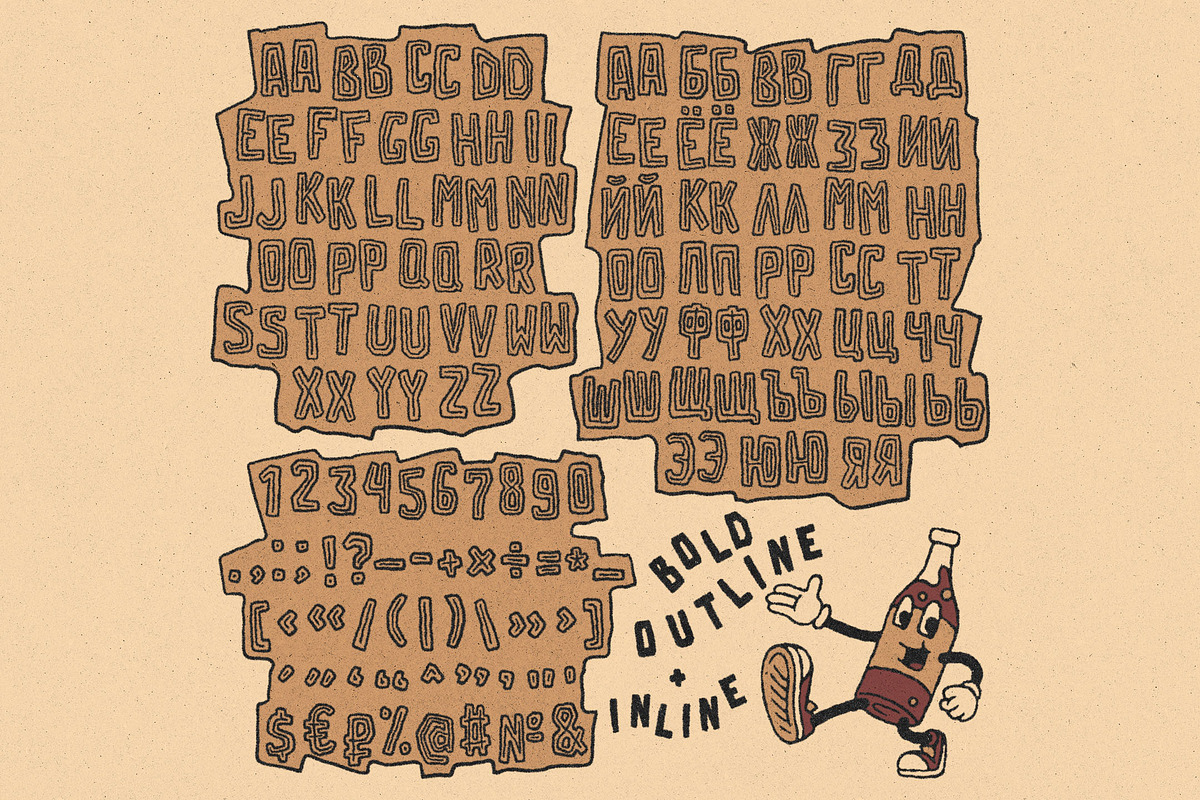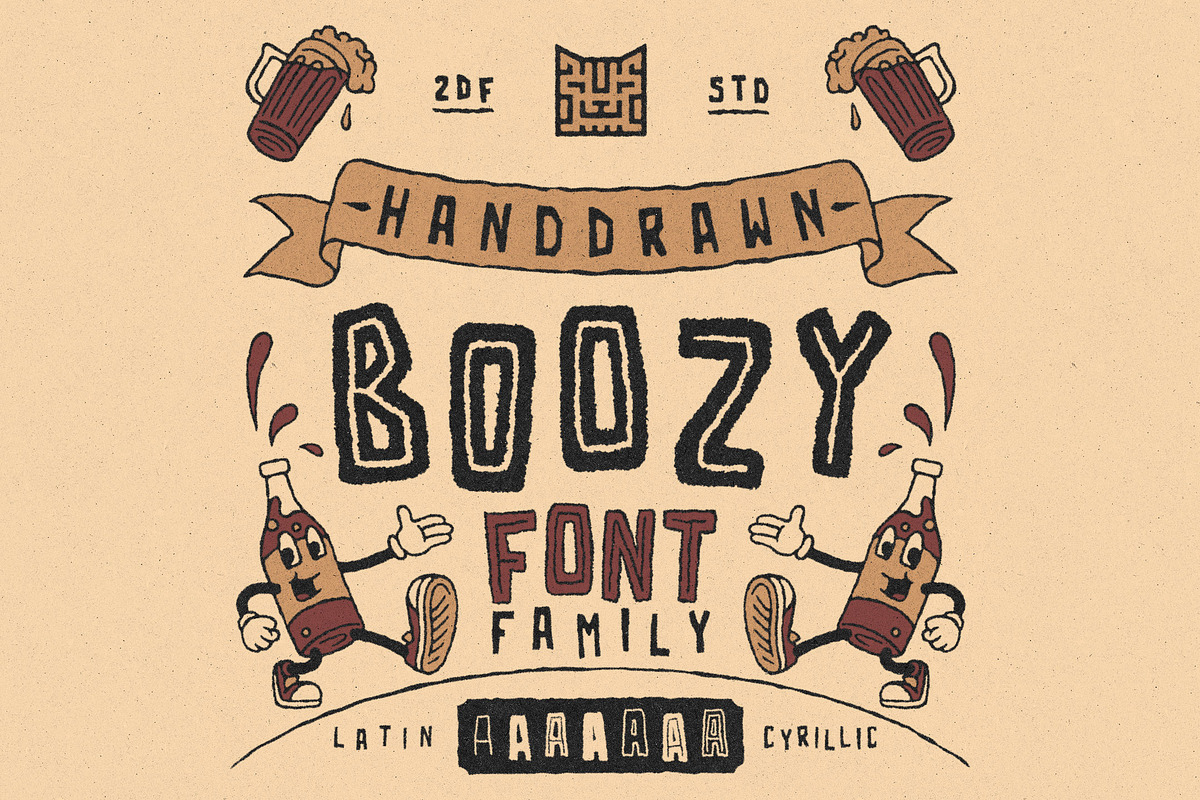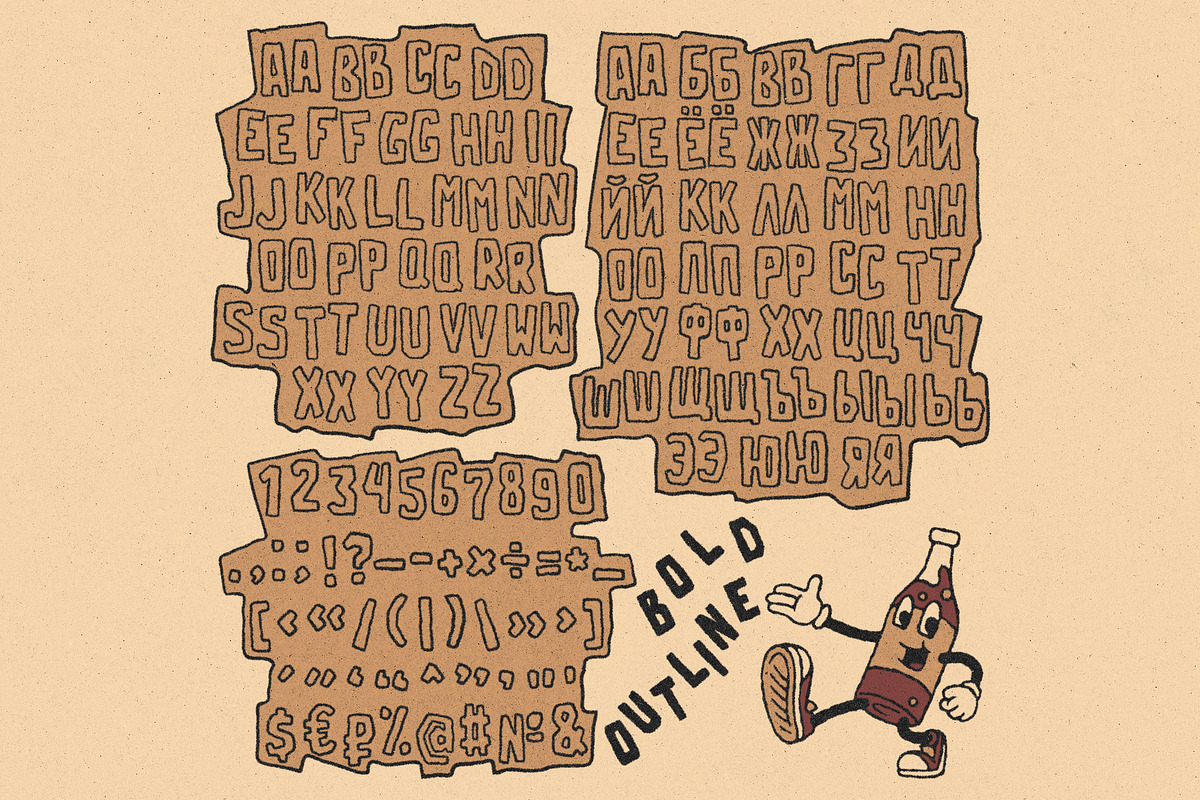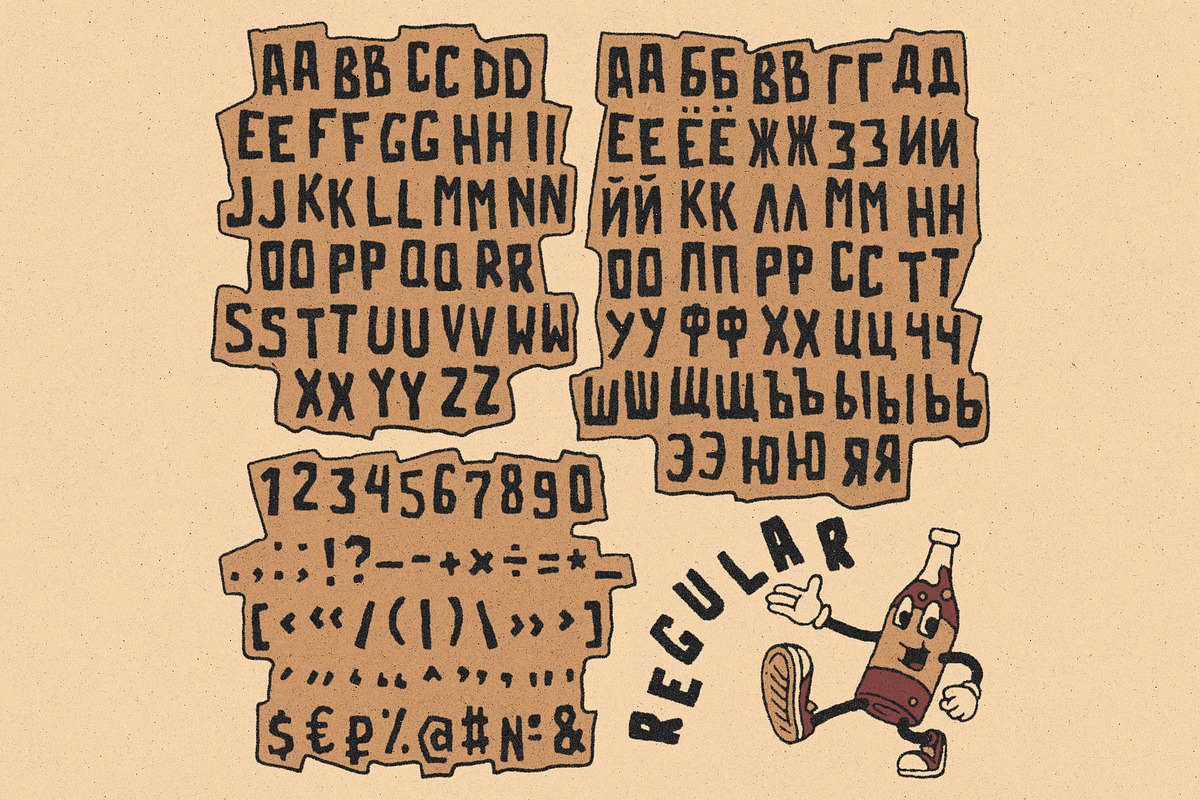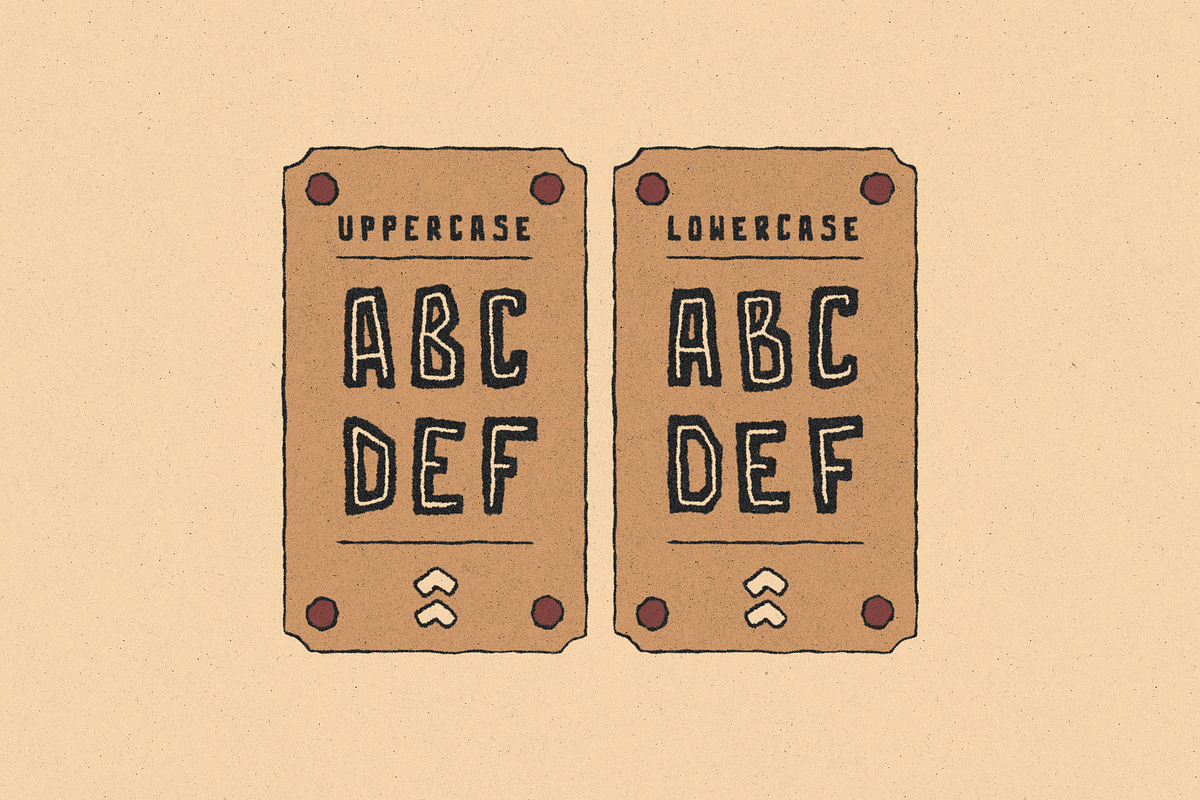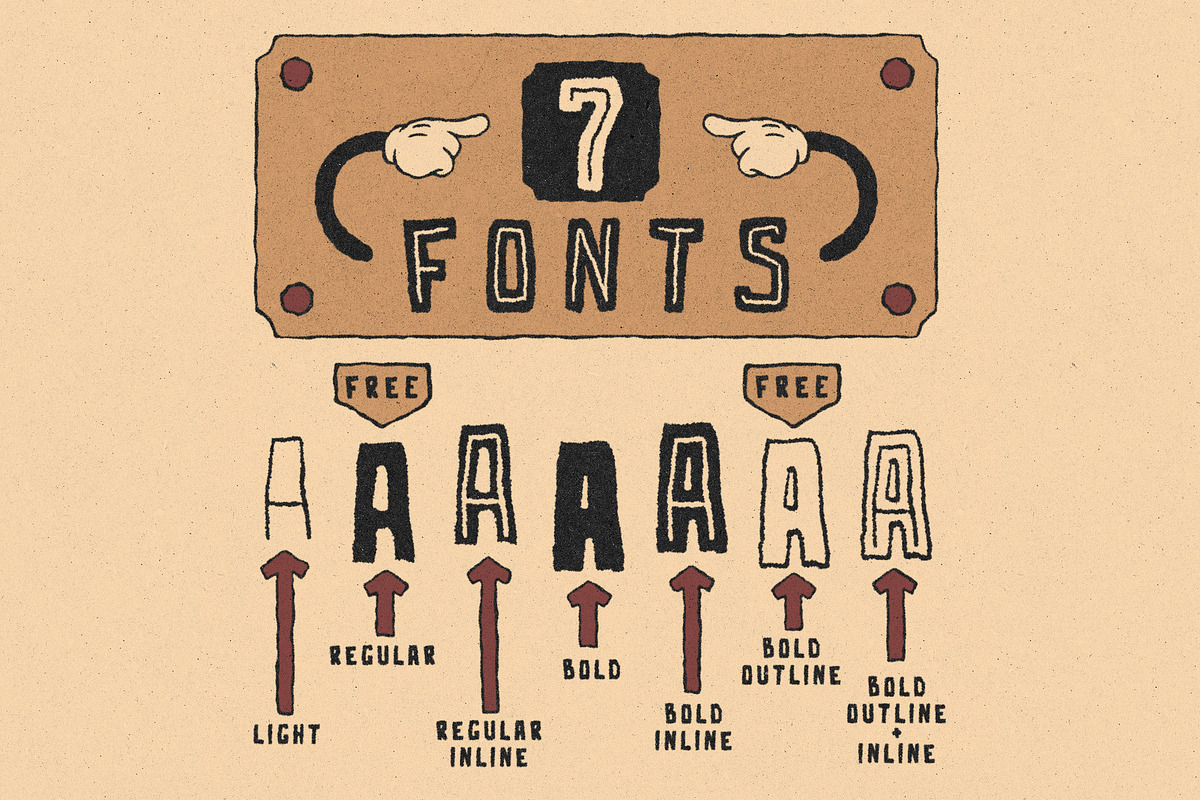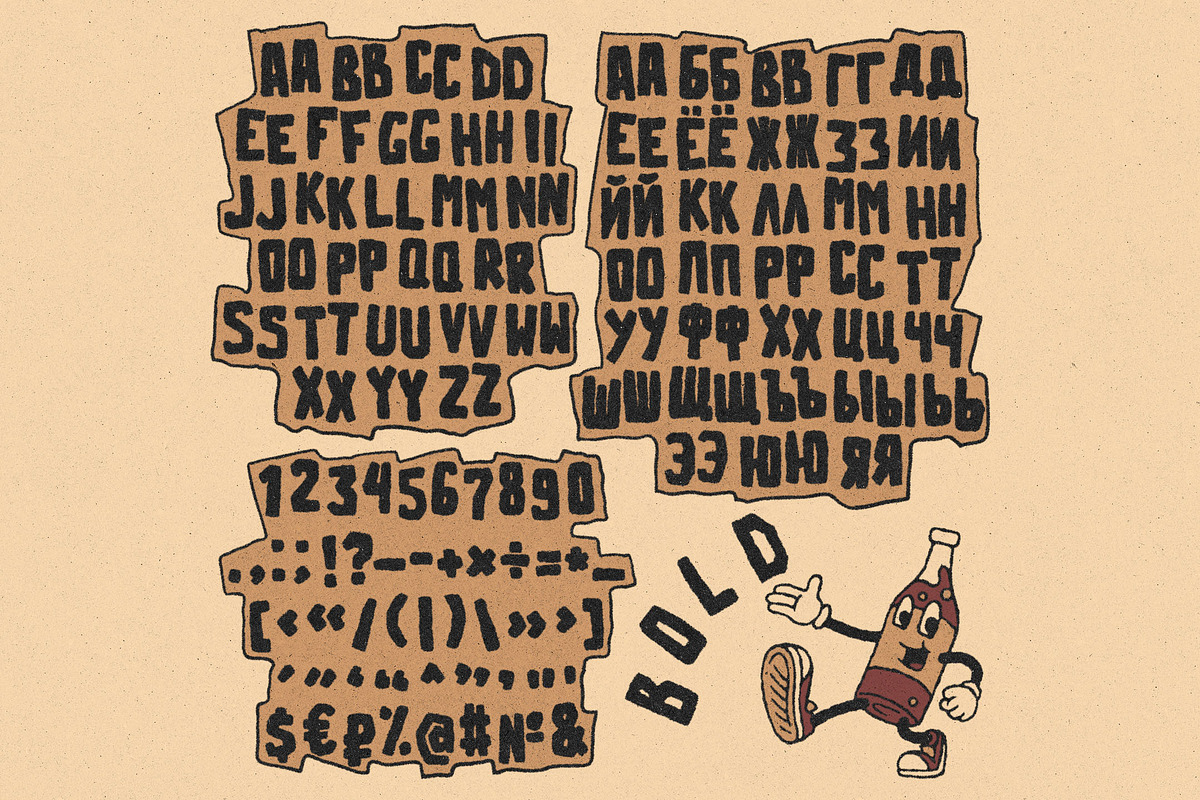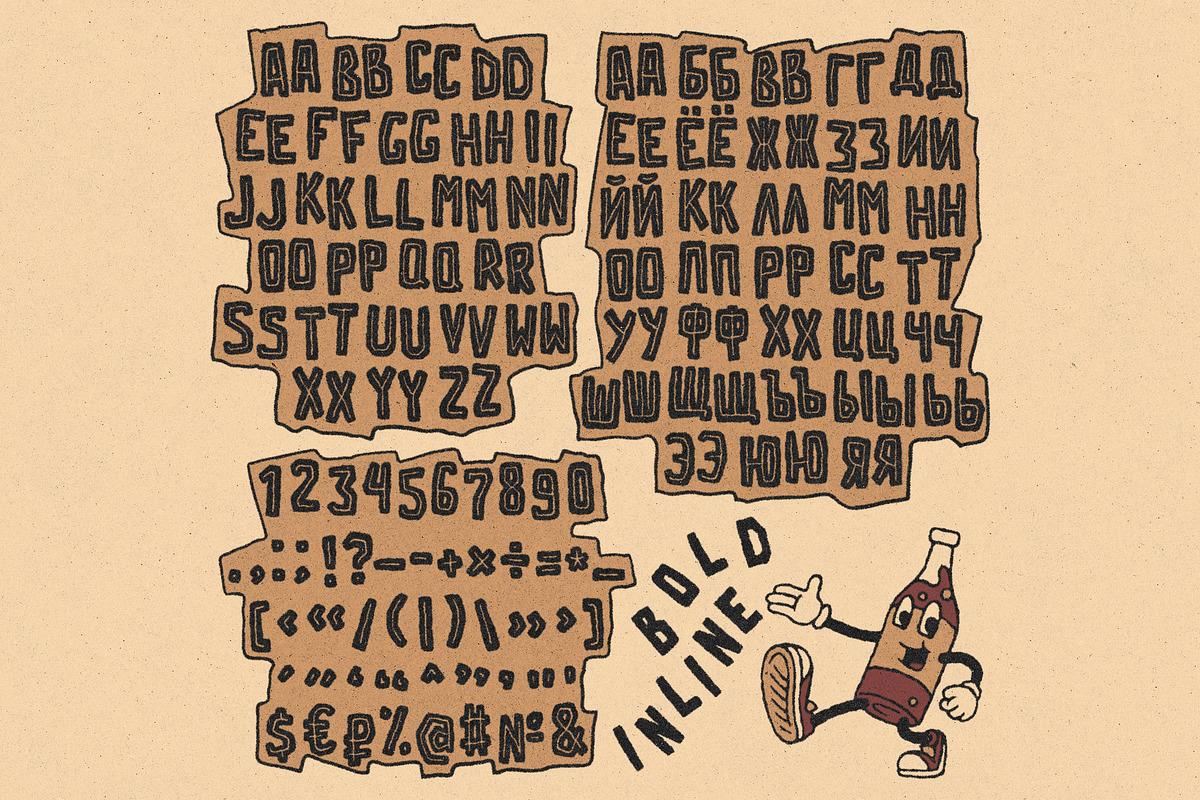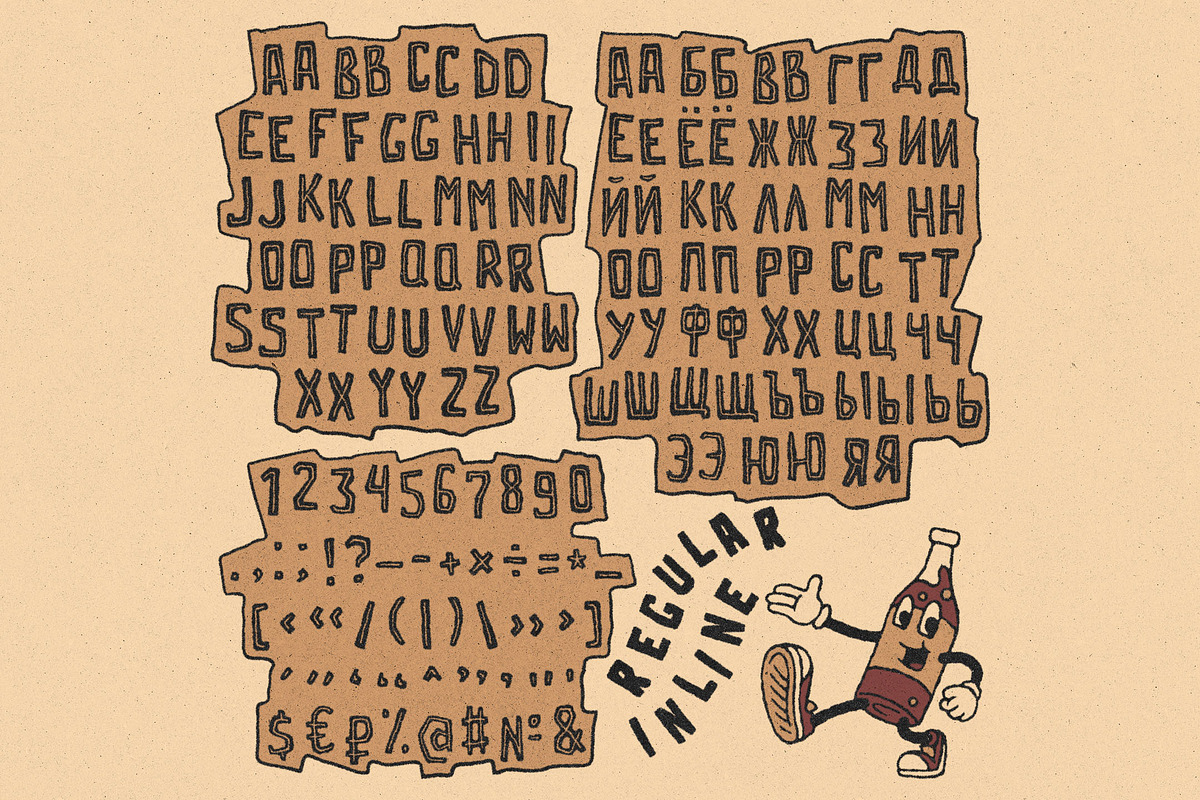
BOOZY | FONT FAMILY
BOOZY vintage handdrawn fonts collection with latin and cyrillic alphabets. Suitable for any graphic designs such as branding materials, t-shirts, print, business cards, logos, posters, t-shirts .etc.
◉ 6 fonts:
- BOOZY Light
- BOOZY Regular (FREE)
- BOOZY Regular Inline
- BOOZY Bold
- BOOZY Bold Inline
- BOOZY Bold Outline (FREE)
- BOOZY Bold Outline / Inline
◉ Latin, cyrillic